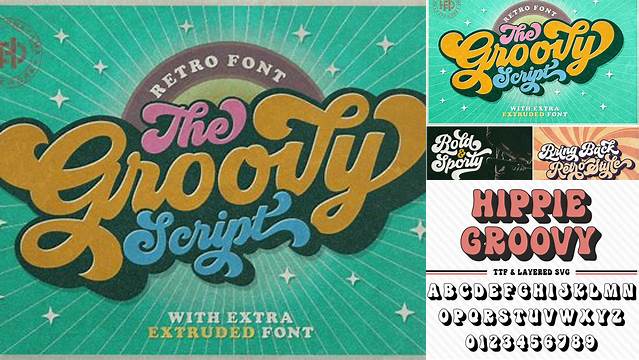
Groovy Script Font: Free Downloads & Usage Guide
Are you on the hunt for groovy script fonts to inject some retro charm and personality into your designs? Look no further! This comprehensive guide will walk you through the world of groovy script fonts, where to find them for free, and how to use them effectively in your projects. We'll dive deep into the characteristics of groovy fonts, explore various styles, and provide tips for selecting the perfect font for your needs. So, buckle up and get ready to add some groovy vibes to your designs!
What Makes a Font "Groovy?"
Groovy fonts, often inspired by the vintage aesthetics of the 1960s and 1970s, evoke a sense of nostalgia, fun, and free-spiritedness. These fonts are characterized by their flowing curves, bold strokes, and a touch of playfulness. They often feature swashes, ligatures, and other decorative elements that add to their unique charm. When you think of groovy fonts, imagine the vibrant typography of retro posters, album covers, and psychedelic art. These fonts are not just about readability; they're about making a statement and conveying a specific mood. The key elements that define a groovy font include: Flowing Script Styles: Groovy fonts often mimic the fluidity of handwriting, with connected letters and graceful curves. This creates a sense of movement and energy. Bold and Chunky Strokes: Many groovy fonts feature thick, bold strokes that command attention. This makes them ideal for headlines, logos, and other display purposes. Decorative Elements: Swashes, ligatures, and other decorative elements are common in groovy fonts, adding a touch of flair and personality. These embellishments can range from subtle flourishes to extravagant curls and loops. Vintage Inspiration: Groovy fonts draw inspiration from the typography of the 1960s and 1970s, often incorporating elements of psychedelic art, disco culture, and retro advertising. This gives them a distinct vintage vibe that's both nostalgic and stylish. Playful and Expressive: Groovy fonts are all about having fun and expressing yourself. They often feature unconventional letterforms and quirky details that set them apart from more traditional fonts. This makes them perfect for projects that need a touch of personality and originality.
Where to Find Groovy Script Fonts for Free
Top Free Groovy Script Fonts to Download
To get you started on your groovy font journey, here are some top free options that you can download and use in your projects:
- Stay Groovy: This font perfectly embodies the groovy spirit with its flowing script and retro vibe. It's ideal for posters, logos, and social media graphics.
- Groovy Hippie: This font exudes a fun and playful energy, perfect for adding a touch of whimsy to your designs.
- Summer Groovy: This font captures the essence of summer with its bold, flowing script and sunny disposition.
- Groovy Script: A classic groovy font with a touch of elegance, perfect for a variety of design applications.
- The Groovy Family: This font family offers a range of weights and styles, providing versatility for your projects.
These fonts are just a starting point, and there are many other fantastic groovy script fonts available for free download. Be sure to explore the resources mentioned earlier in this guide to discover even more options.
How to Use Groovy Script Fonts Effectively
Now that you've found some amazing groovy script fonts, it's time to put them to use! However, using these fonts effectively requires a bit of finesse. Groovy fonts, with their distinctive style and personality, are best used strategically to enhance your designs without overwhelming them. Here are some tips for using groovy script fonts effectively: Use for Headlines and Logos: Groovy fonts are particularly well-suited for headlines, logos, and other display purposes where you want to make a bold statement. Their unique style and personality can help your message stand out and grab attention. Avoid Using for Body Text: While groovy fonts are great for headlines, they can be difficult to read in large blocks of body text. Their decorative elements and flowing script can become overwhelming and hinder readability. Stick to simpler, more legible fonts for body text. Pair with Simple Sans-Serif Fonts: Groovy fonts often pair well with simple sans-serif fonts. This combination creates a visual contrast that is both eye-catching and easy to read. Use the groovy font for the headline or logo and a clean sans-serif font for the body text. Consider the Context: The context of your design project should influence your choice of font. Groovy fonts are perfect for projects with a vintage, retro, or playful theme. They may not be the best choice for more formal or serious designs. Experiment with Colors and Backgrounds: Groovy fonts can look fantastic when paired with vibrant colors and retro-inspired backgrounds. Experiment with different color palettes and textures to create a cohesive and visually appealing design. Use Sparingly: Groovy fonts are best used sparingly to avoid overwhelming the viewer. Too much of a good thing can be distracting and detract from your message. Use the font strategically to highlight key elements and create visual interest. Pay Attention to Kerning and Leading: Proper kerning (the spacing between individual letters) and leading (the spacing between lines of text) are crucial for readability, especially with script fonts. Adjust the kerning and leading as needed to ensure that your text is easy to read and visually appealing. By following these tips, you can effectively incorporate groovy script fonts into your designs and create stunning visuals that capture the essence of retro style and personality.
Examples of Groovy Script Fonts in Design
To further illustrate the versatility of groovy script fonts, let's look at some examples of how they can be used in different design contexts:
- Posters and Flyers: Groovy fonts are a natural fit for posters and flyers, especially those with a vintage or retro theme. Their bold style and playful personality can help your message stand out and grab attention. Think of psychedelic concert posters, retro movie advertisements, or vintage travel brochures. Groovy fonts can evoke a sense of nostalgia and excitement, making them perfect for promoting events, products, or services.
- Logos and Branding: A well-chosen groovy script font can add a unique touch to your logo and branding materials. These fonts can convey a sense of creativity, fun, and individuality, making them ideal for businesses and organizations that want to stand out from the crowd. Consider using a groovy font for your logo, website header, and other branding elements to create a consistent and memorable visual identity.
- Social Media Graphics: Groovy fonts can be a great way to add personality to your social media graphics. Use them for headlines, captions, or watermarks to create eye-catching visuals that reflect your brand's style and voice. These fonts can help you stand out in a crowded social media landscape and attract attention to your content.
- Invitations and Cards: If you're planning a retro-themed party or event, a groovy script font is the perfect choice for your invitations and cards. These fonts can add a touch of whimsy and nostalgia, setting the tone for a fun and memorable occasion. Consider using a groovy font for wedding invitations, birthday cards, or holiday greetings to create a unique and personalized touch.